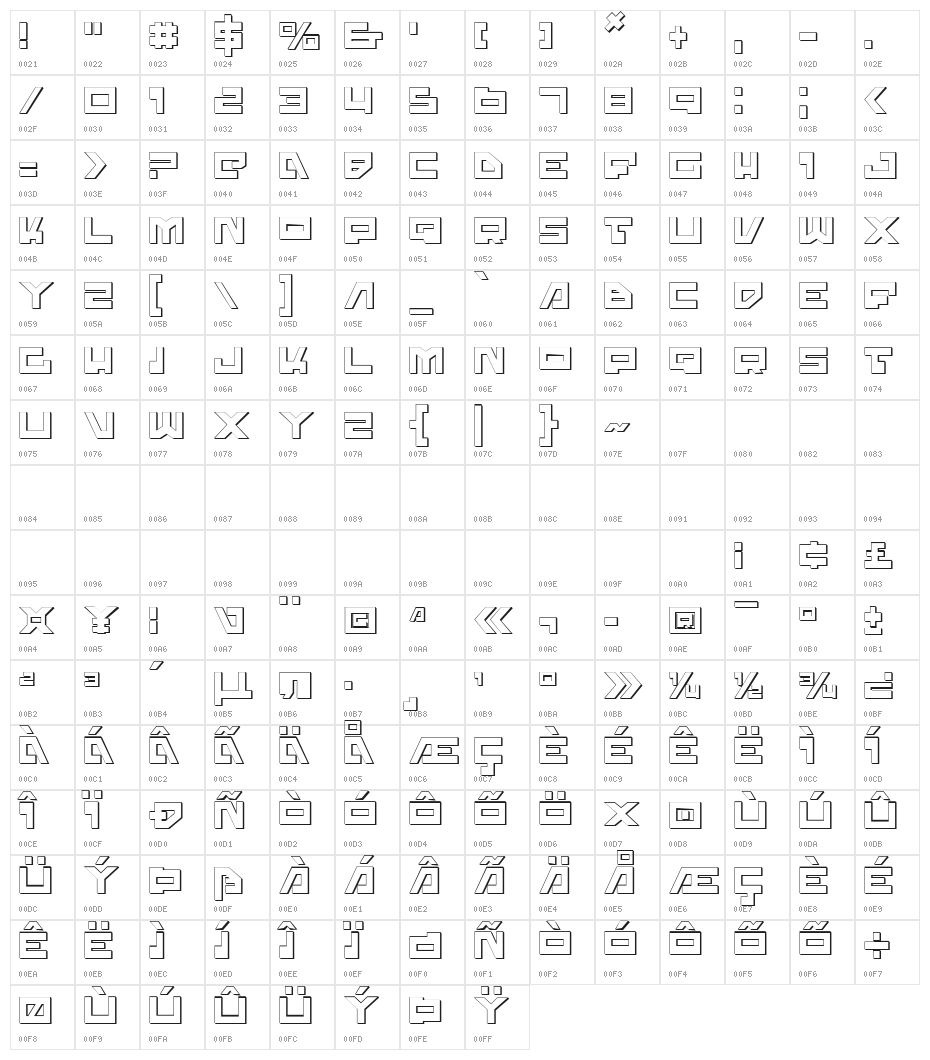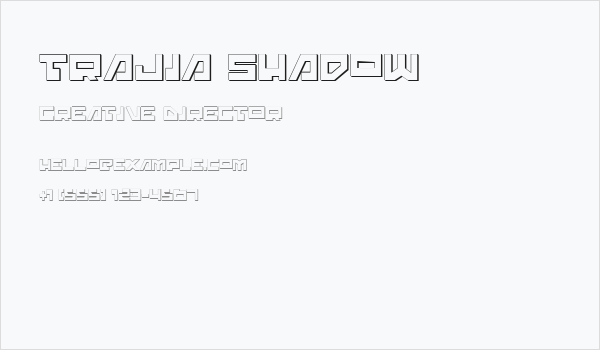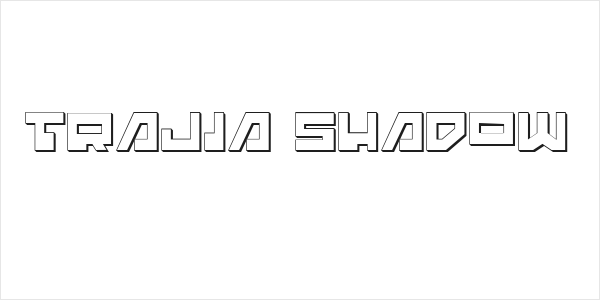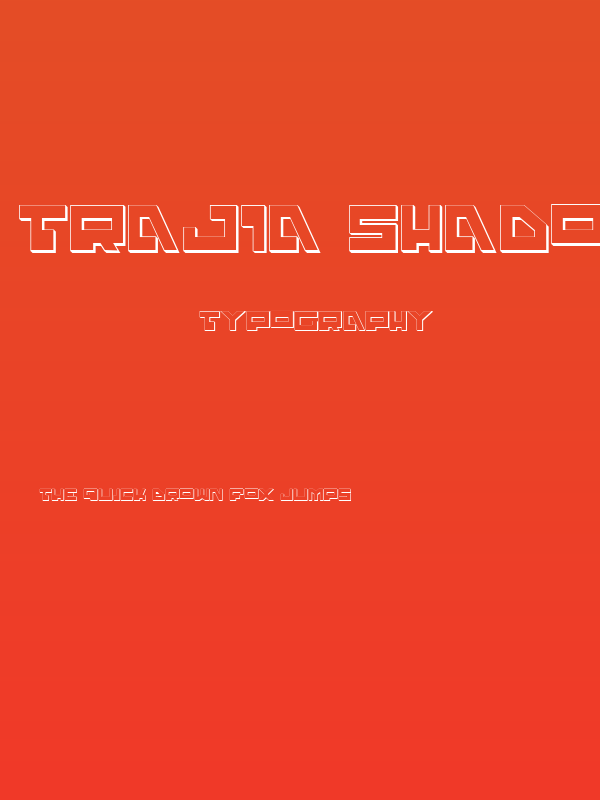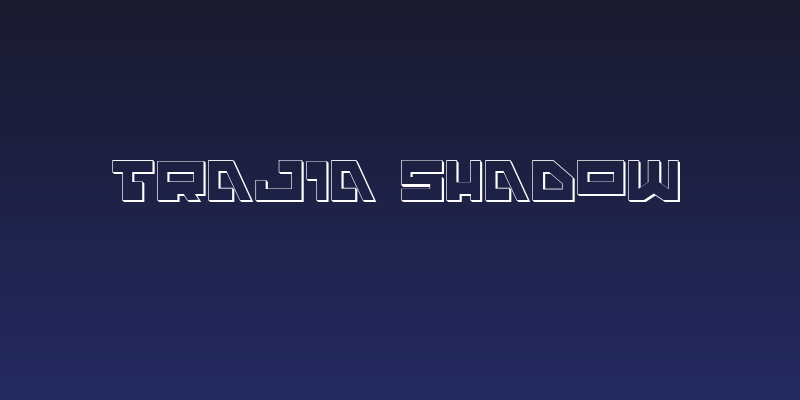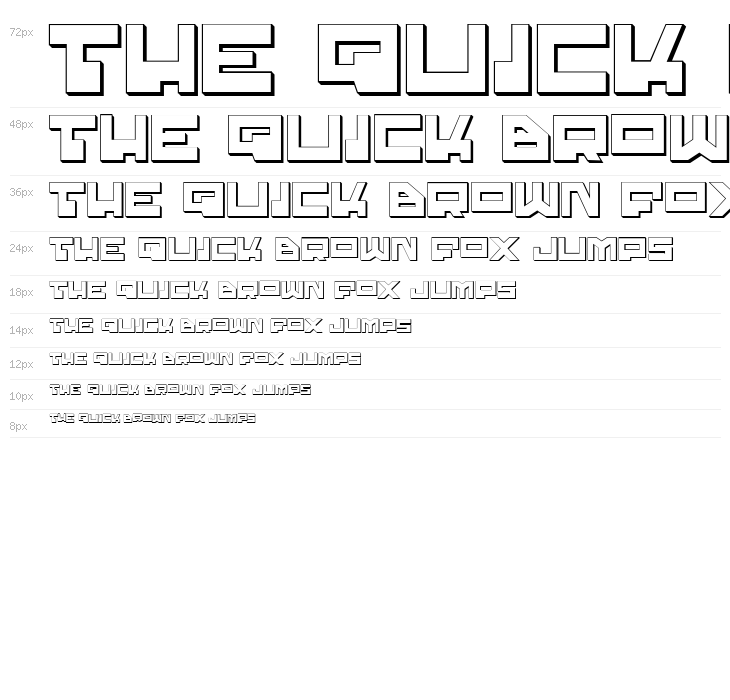
Trajia Shadow Font
Trajia Shadow Description
This font features a bold, geometric design with a distinct shadow effect that gives it a three-dimensional appearance. The characters are constructed with sharp angles and straight lines, creating a futuristic and digital aesthetic. The uppercase and lowercase letters maintain a consistent style, with the shadow adding depth and a sense of movement. The numbers and special characters are designed to match the overall theme, ensuring uniformity across all glyphs. This font's unique style makes it stand out, ideal for projects that require a modern and edgy look.
| Overall Style | Futuristic, Digital |
| Proposed Projects | Ideal for video game titles, tech-themed posters, futuristic branding, and digital media. |